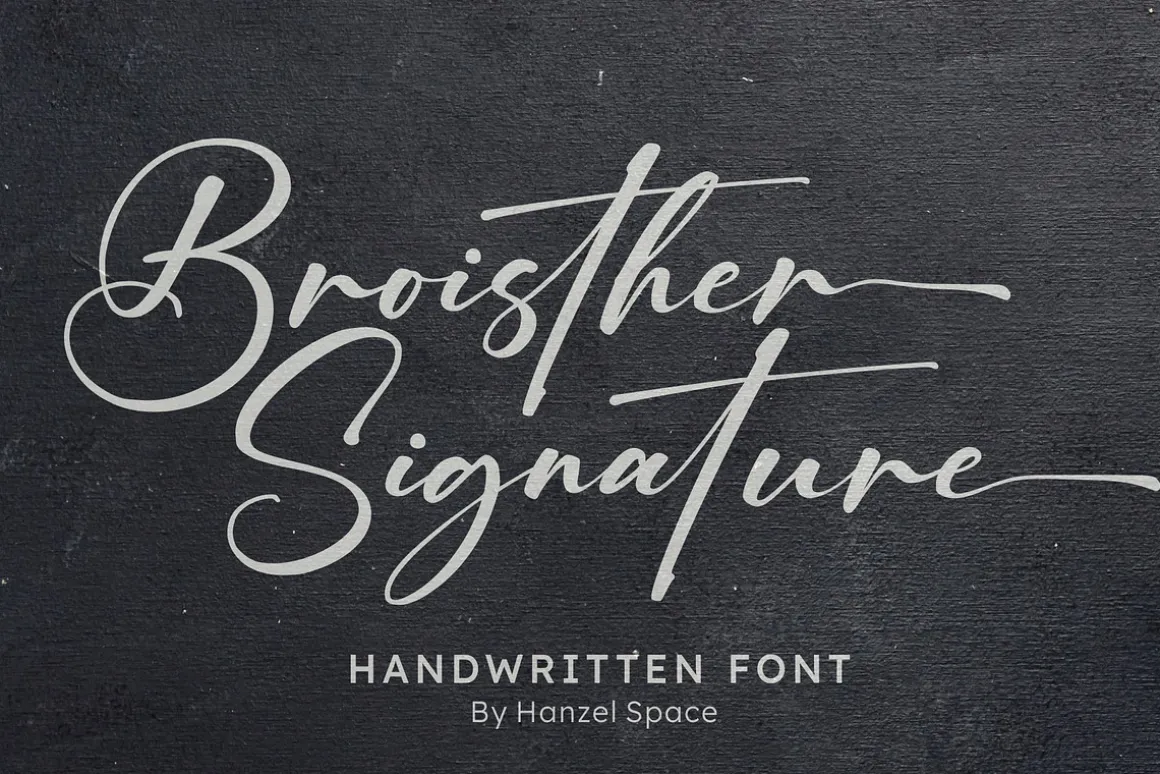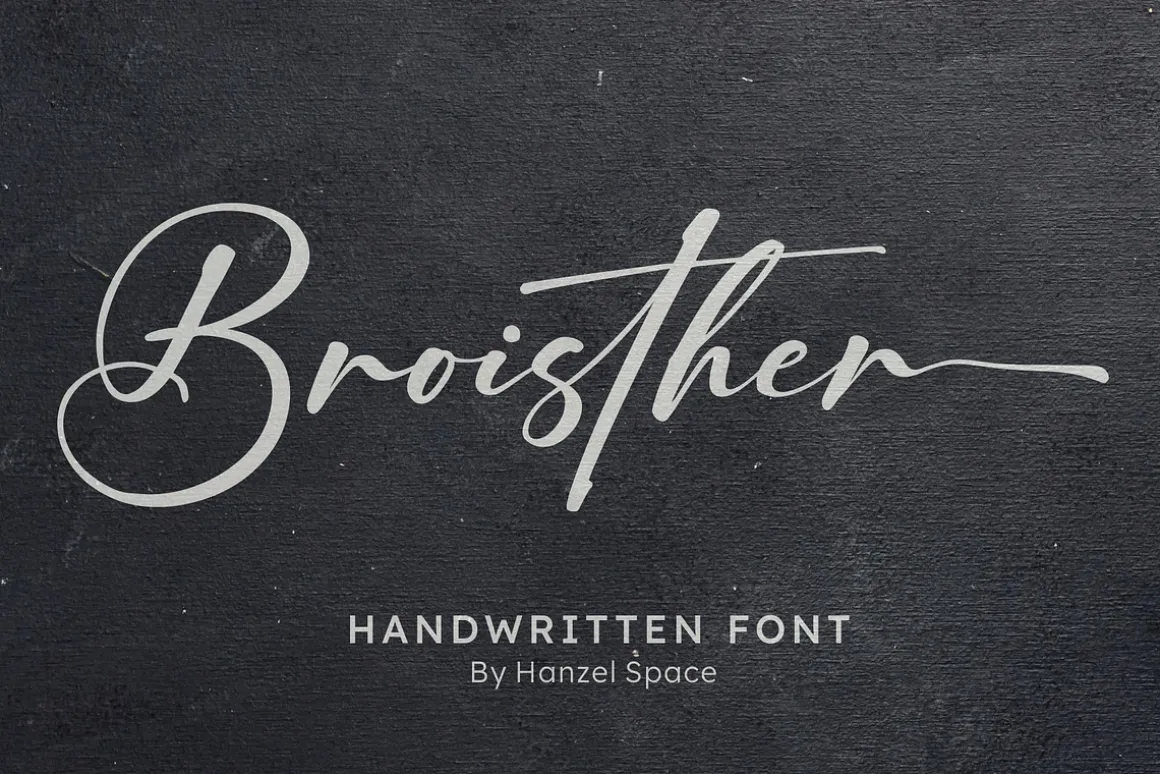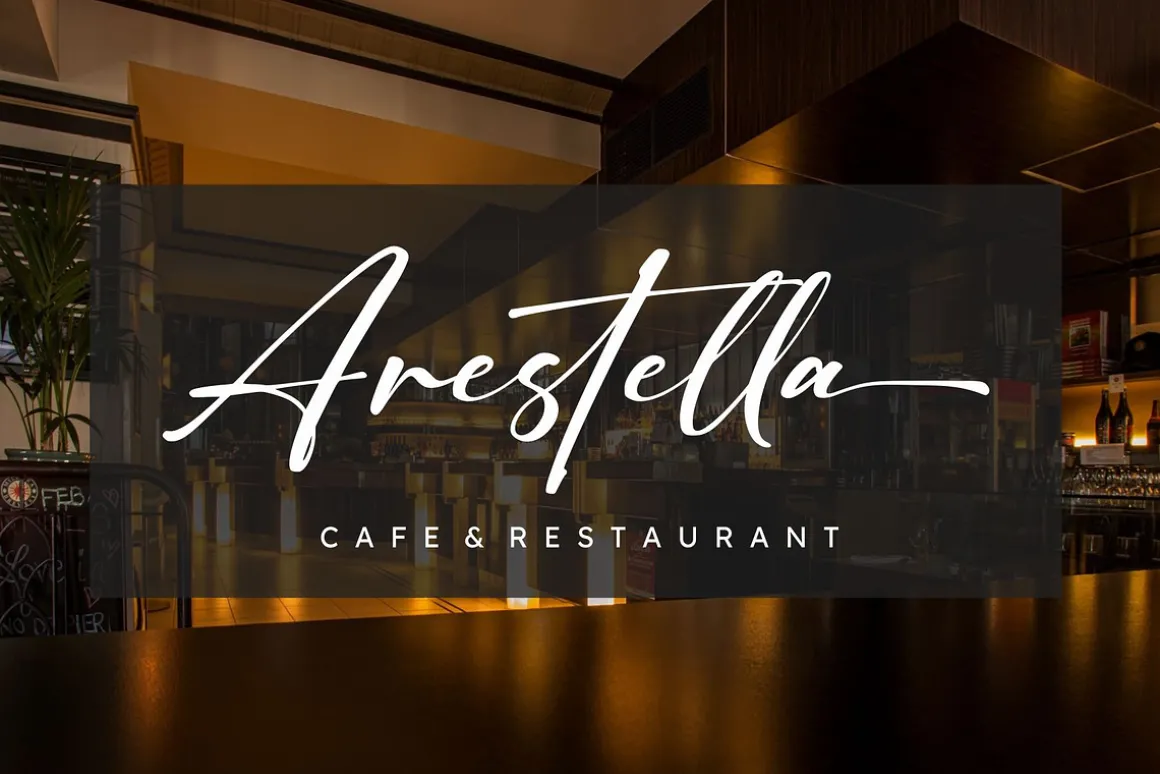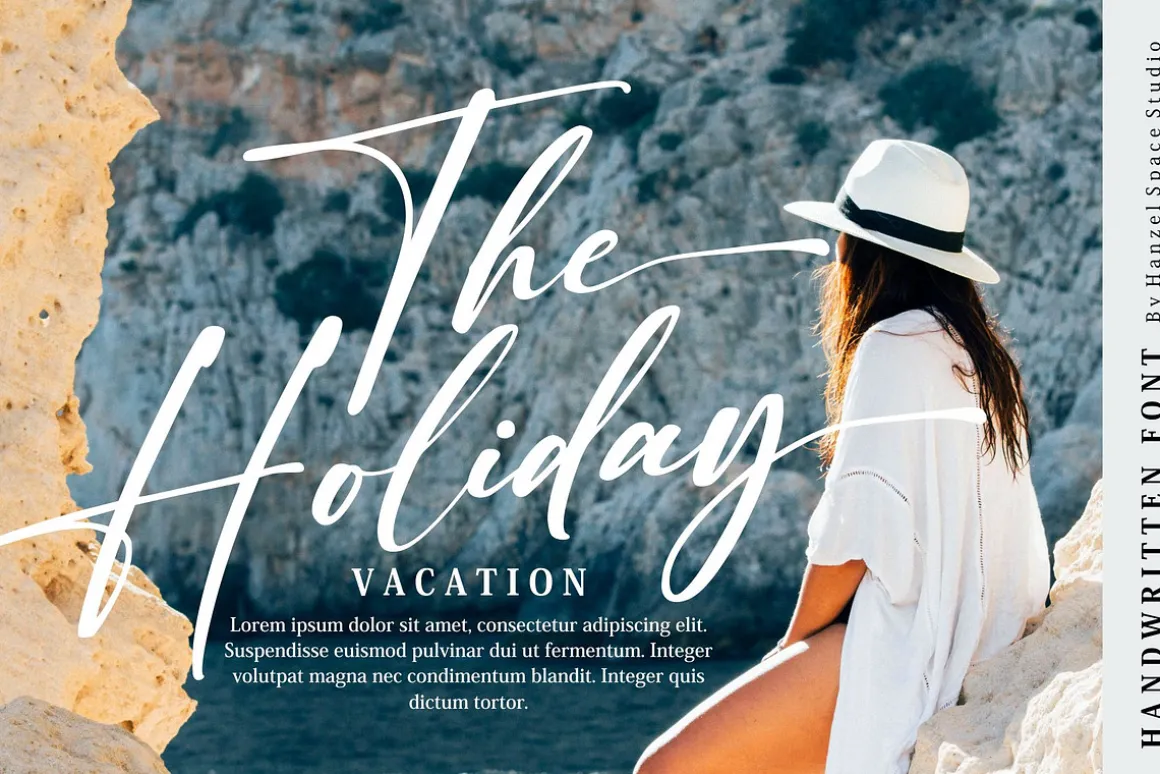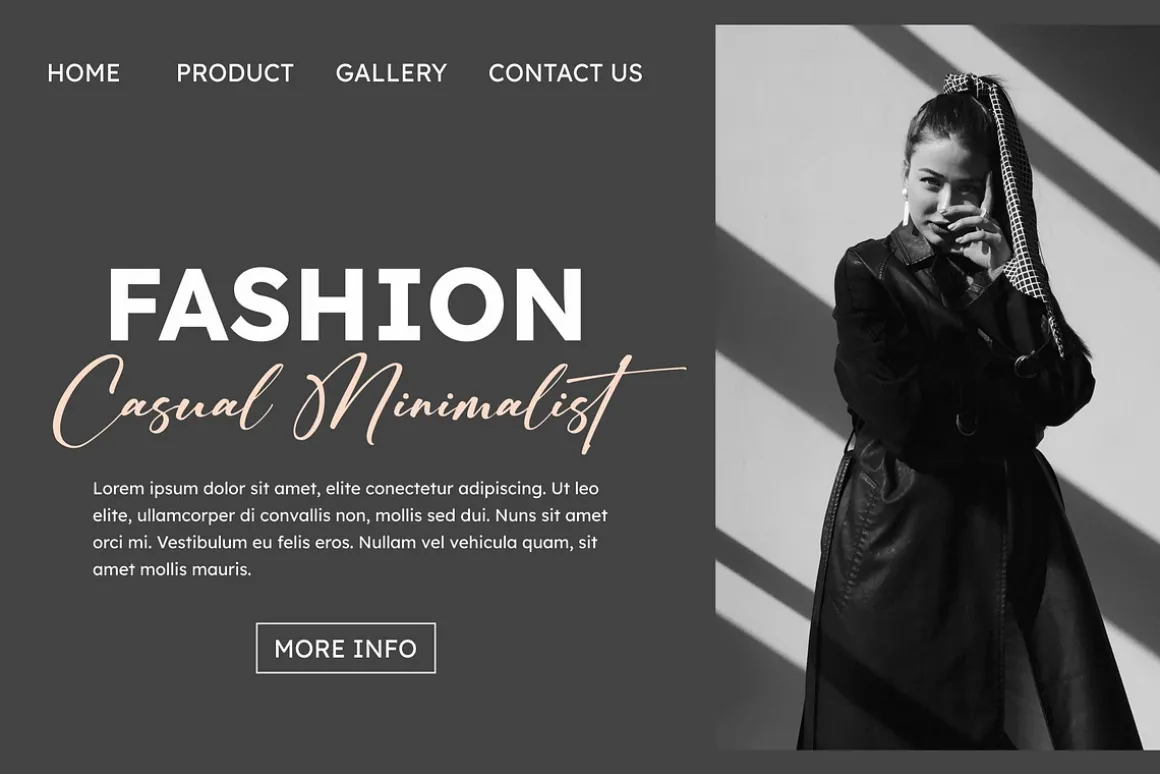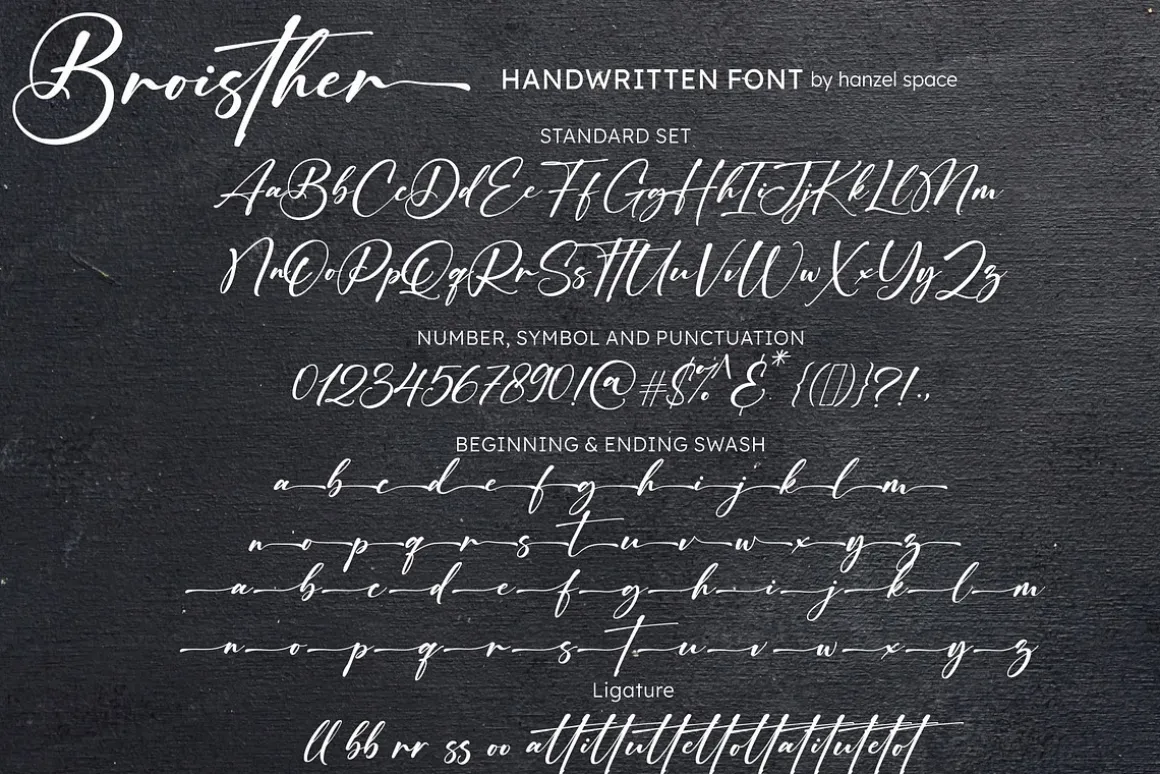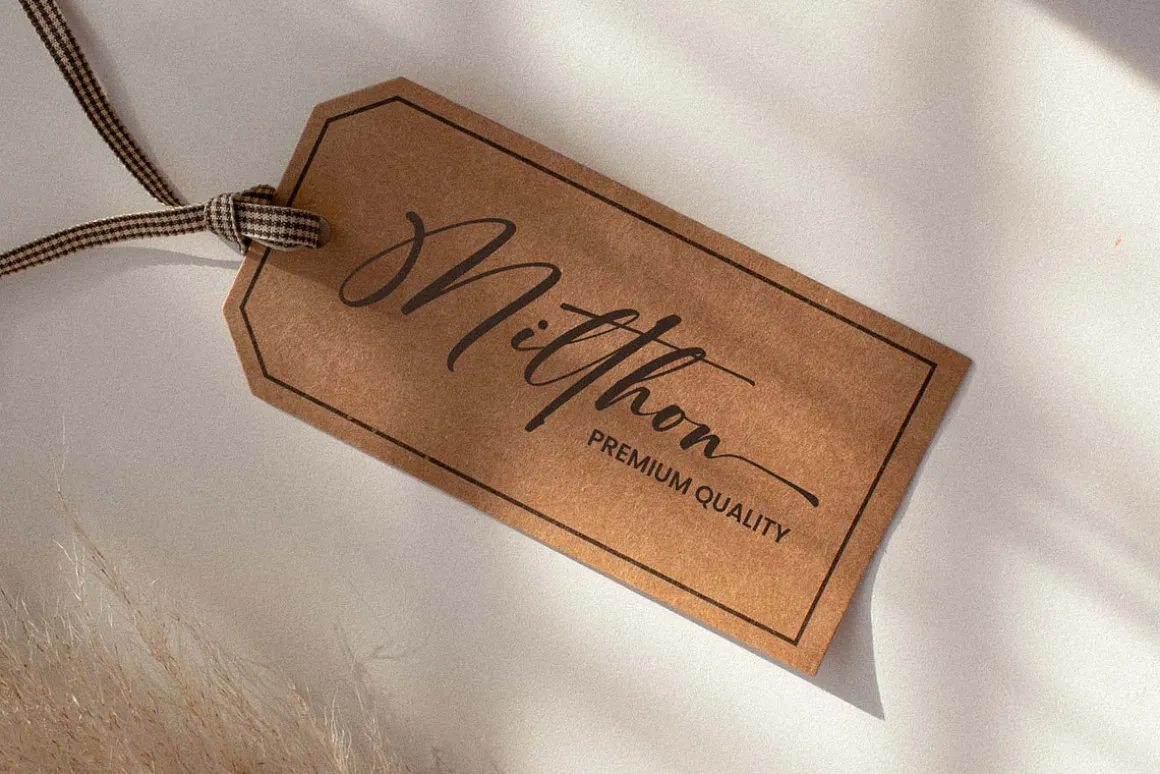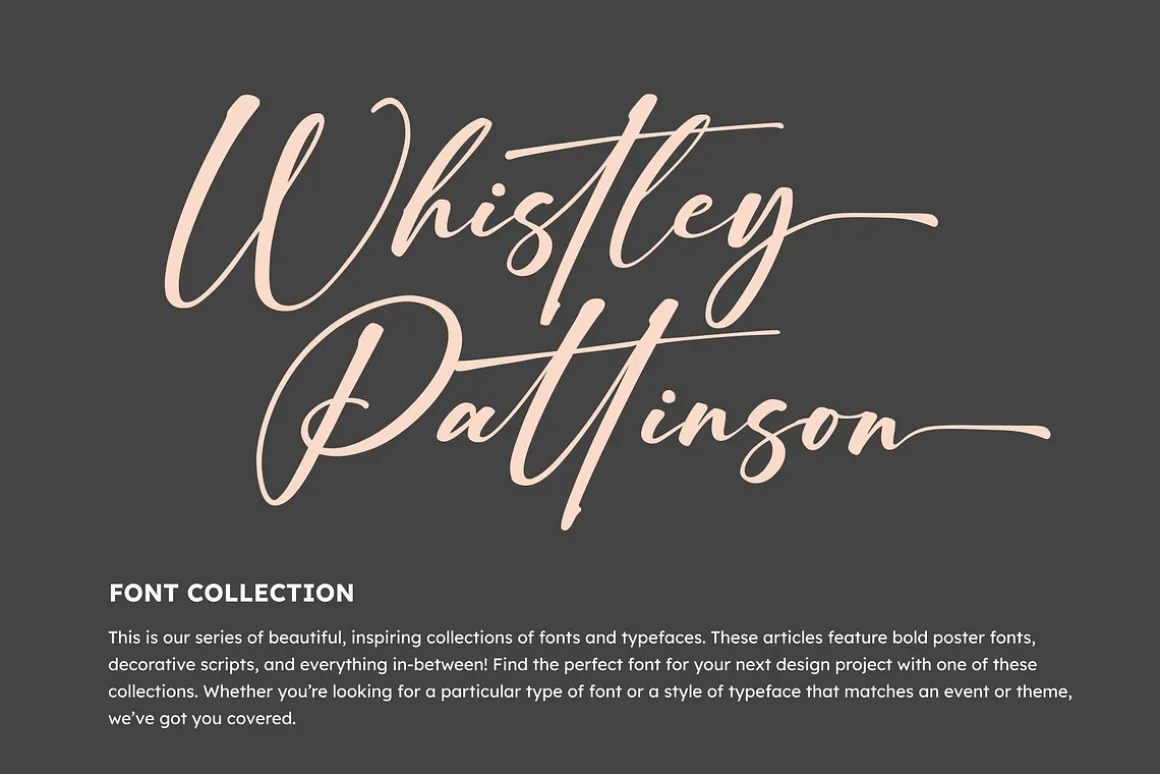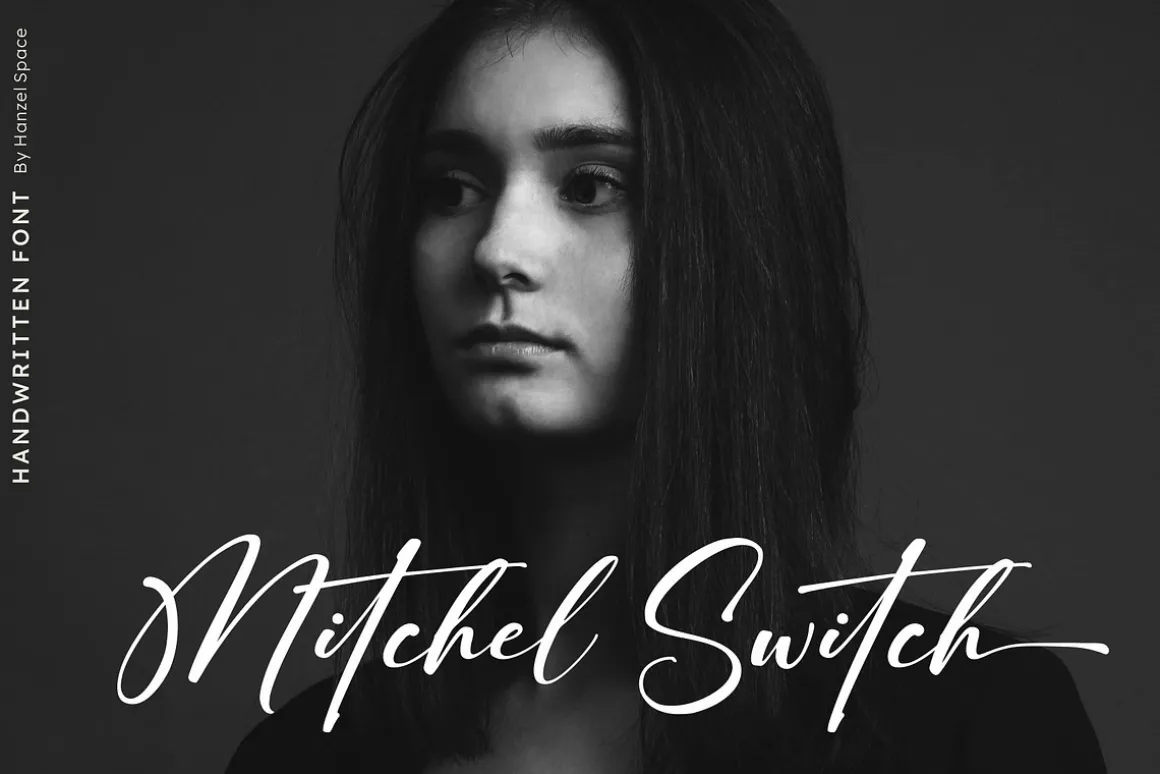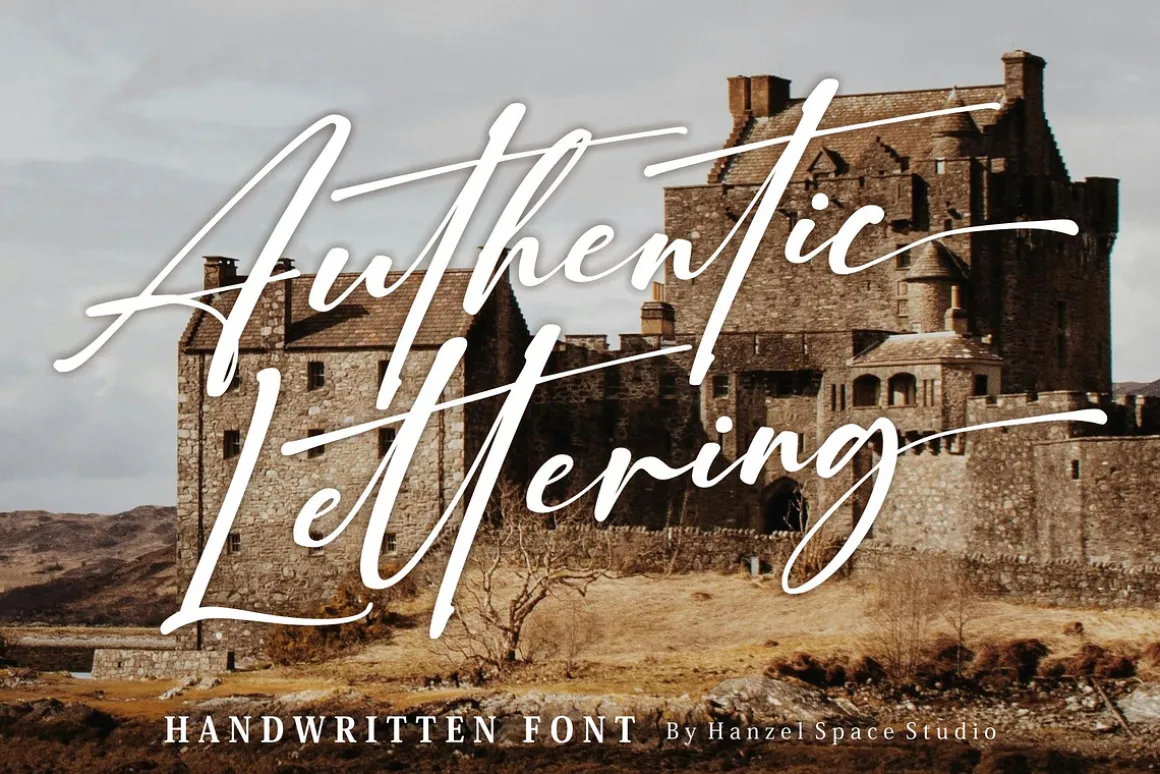
Say hello Broisther, a handwritten script font inspired by handwriting with an aesthetic touch.
Broisther is versatile enough for both web and print and can be used in a variety of projects such as stationery, packaging, apparel, wedding stationery, prints, quotes, social media graphics, planners, greeting cards, logos, branding, and much much more.
The script includes a set of uppercase characters, numerals, symbols, two lowercase letter sets, and a total of 28 ligature.
Full Set of standard alphabet and punctuation
Extra set of ending swashed lowercase
Handwritten ligatures